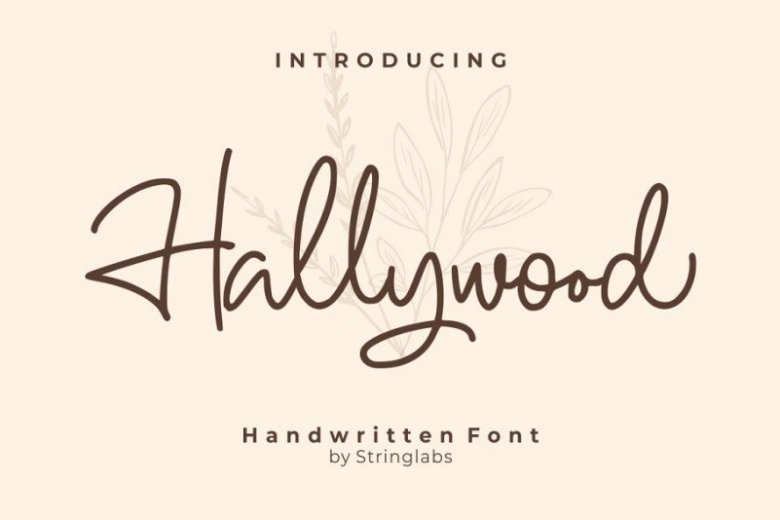
Hallywood Handwritten Font
Hi Font Lover! This is a luxury, modern handwritten font with a personal charm, which are perfect for your design needs and especially for the benefits of design branding. Introducing Hallywood Font. This Font can be used for any variety of purposes, such as: Signature, Photography, Wedding Ceremony, Invitation, Packaging, Logo Type, Branding Design, Fashion and also can be used for Business purpose. This Font Template contains Modern, Elegant, Creative, Professional and Unique Concept.